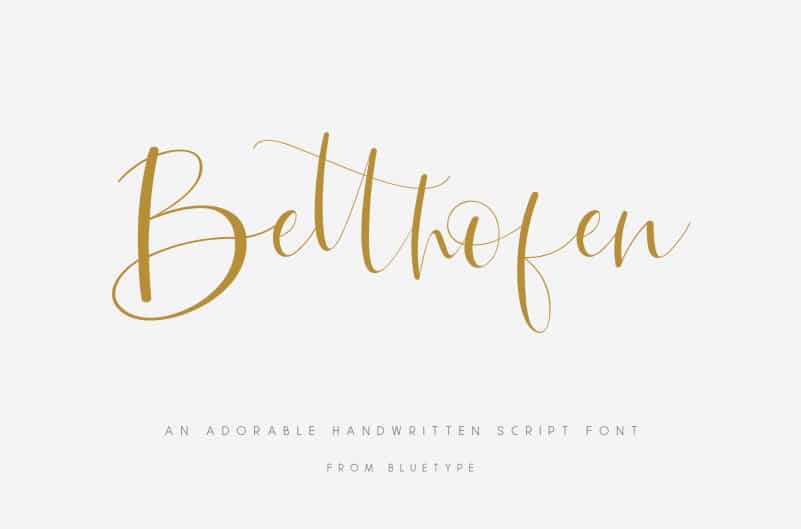
Betthofen – Script Font
Betthofen Script Font is an adorable handwritten script font manufactured by Bluetype, which support OpenType features and includes, numeral, punctuation, ligatures and it also supports multi-languages.
This font is perfect for branding projects, wedding designs, advertisements, product packaging, product designs, label, photography, invitation, quotes and any project spiced up!